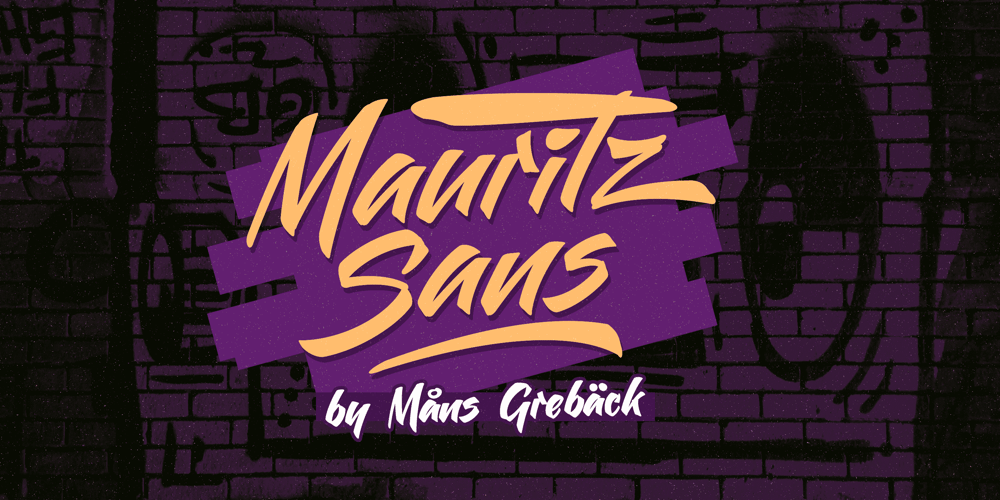
Mauritz Sans Font Family was designed by Måns Grebäck and published by Mans Greback. Mauritz Sans contains 9 styles and family package options. Mauritz Sans is a brush script typeface. A cartoony brush handwriting, Mauritz was drawn and created by Mans Greback in 2021 to be the ultimate set of wild-style scripts for logotypes and branding. This calligraphy family consists of nine high-quality fonts in a variety of weights and styles: Mauritz Sans Light, Regular and Bold, plus each style is provided in the additional styles Upright and Italic. The font is built with advanced OpenType functionality and has a guaranteed top-notch quality, containing stylistic and contextual alternates, ligatures and more features; all to give you full control and customizability. It has extensive lingual support, covering all Latin-based languages, from North Europe to South Africa, from America to South-East Asia. It contains all characters and symbols you’ll ever need, including all punctuation and numbers.